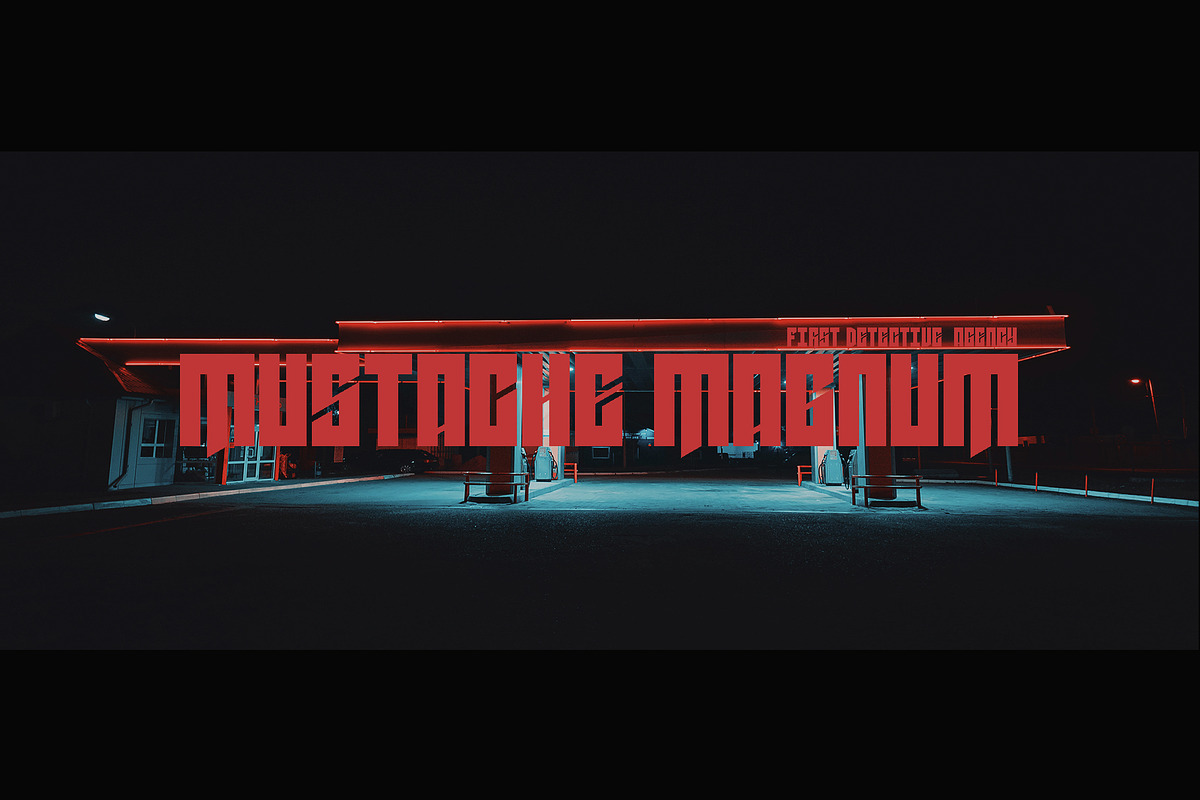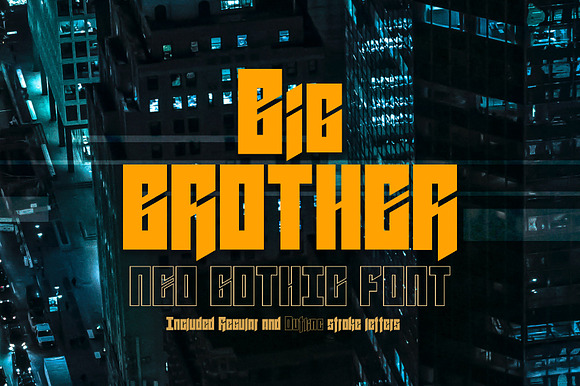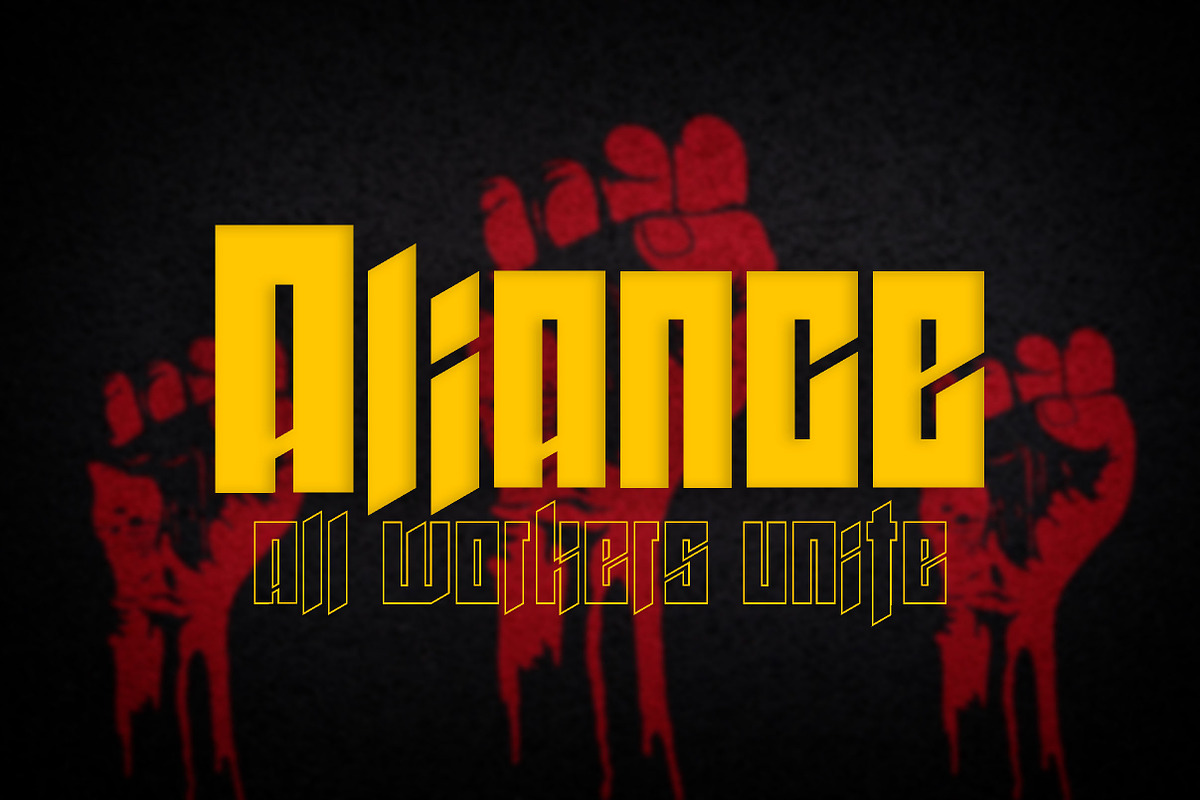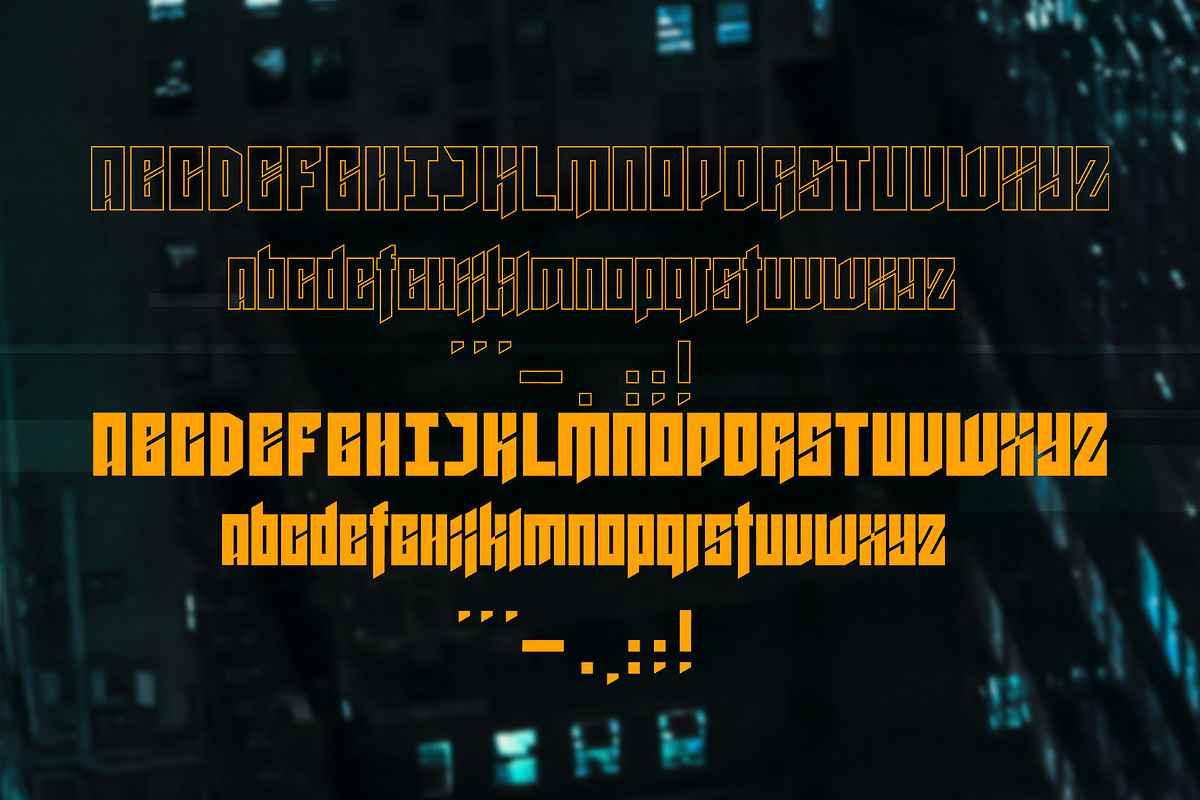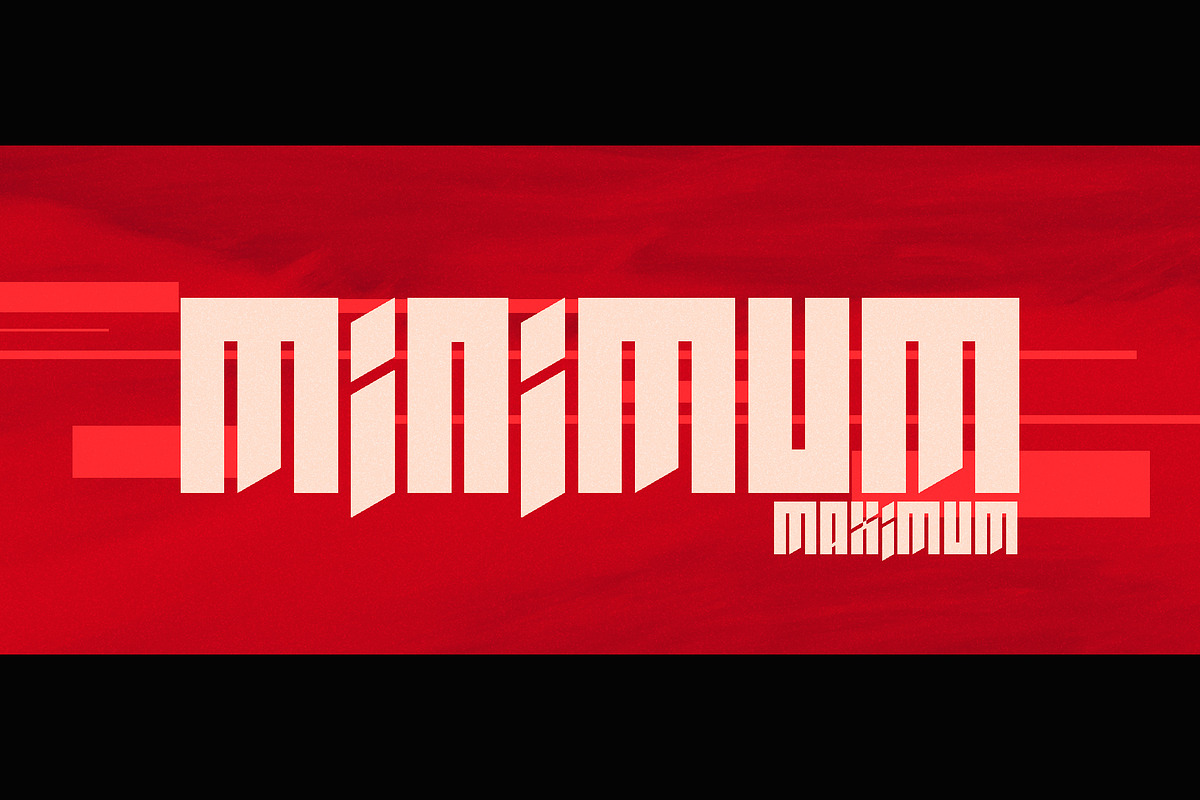
Bigbrother neo gothic font. V 0.2
+++ Updated version. Now with outline font.
Character Set included A-Z Capital and lowercase letters and some punctuations.
Great for headlines, titles, logos or tattoo.